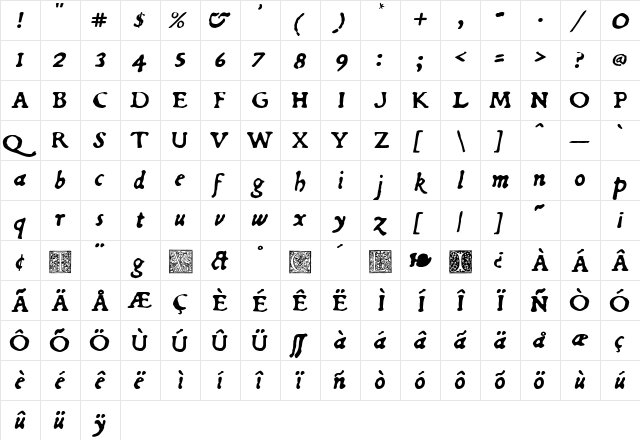
Du Bellay Italic
Design Context for Du Bellay Typeface
Du Bellay offers clean, dependable letterforms without strong stylistic allegiance, making it a practical choice for designers who need flexibility. Its italic angle brings a sense of urgency and motion to the letterforms.
Pro Tip: Use Du Bellay for emphasis, pull quotes, and subheadings where its slanted energy can add rhythm to the layout.